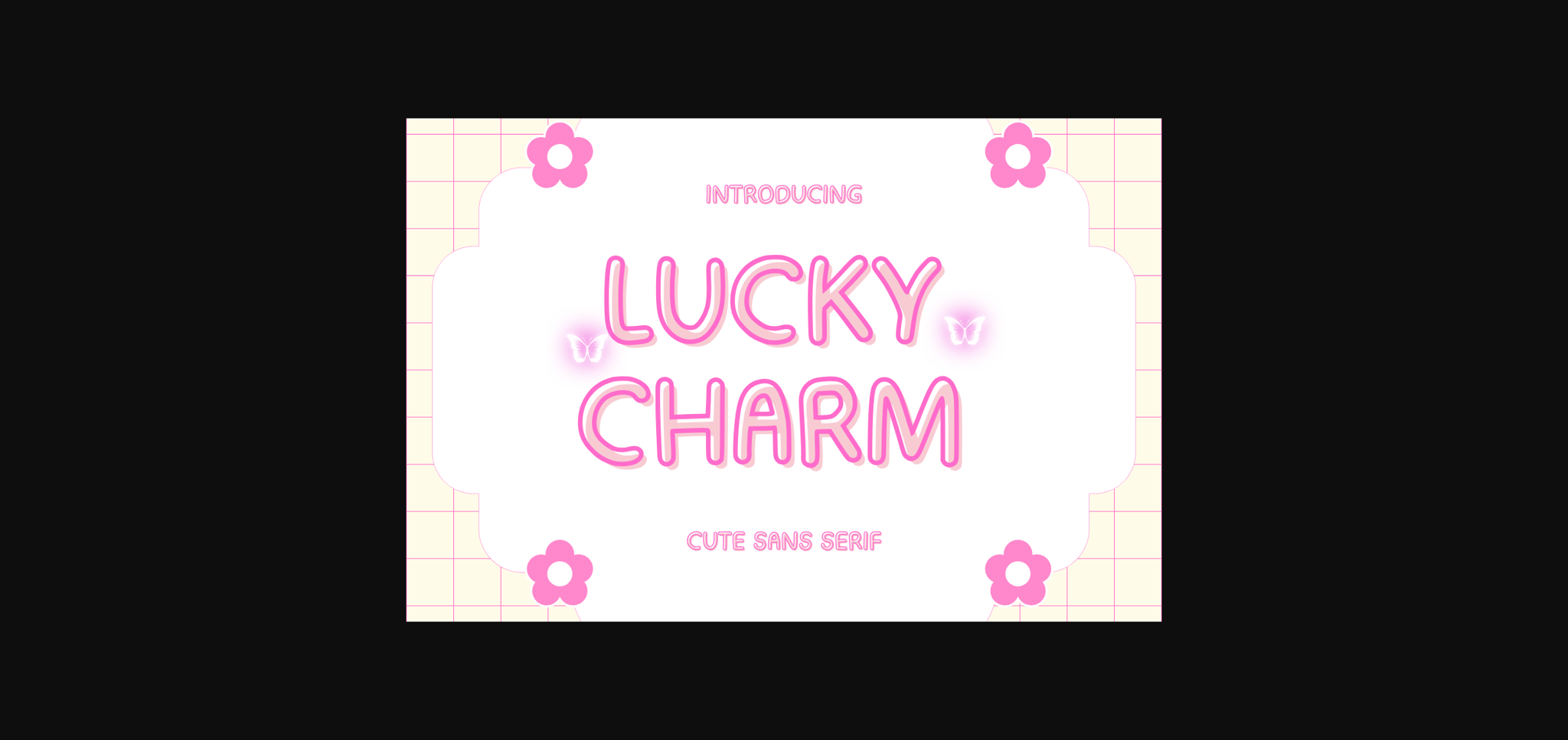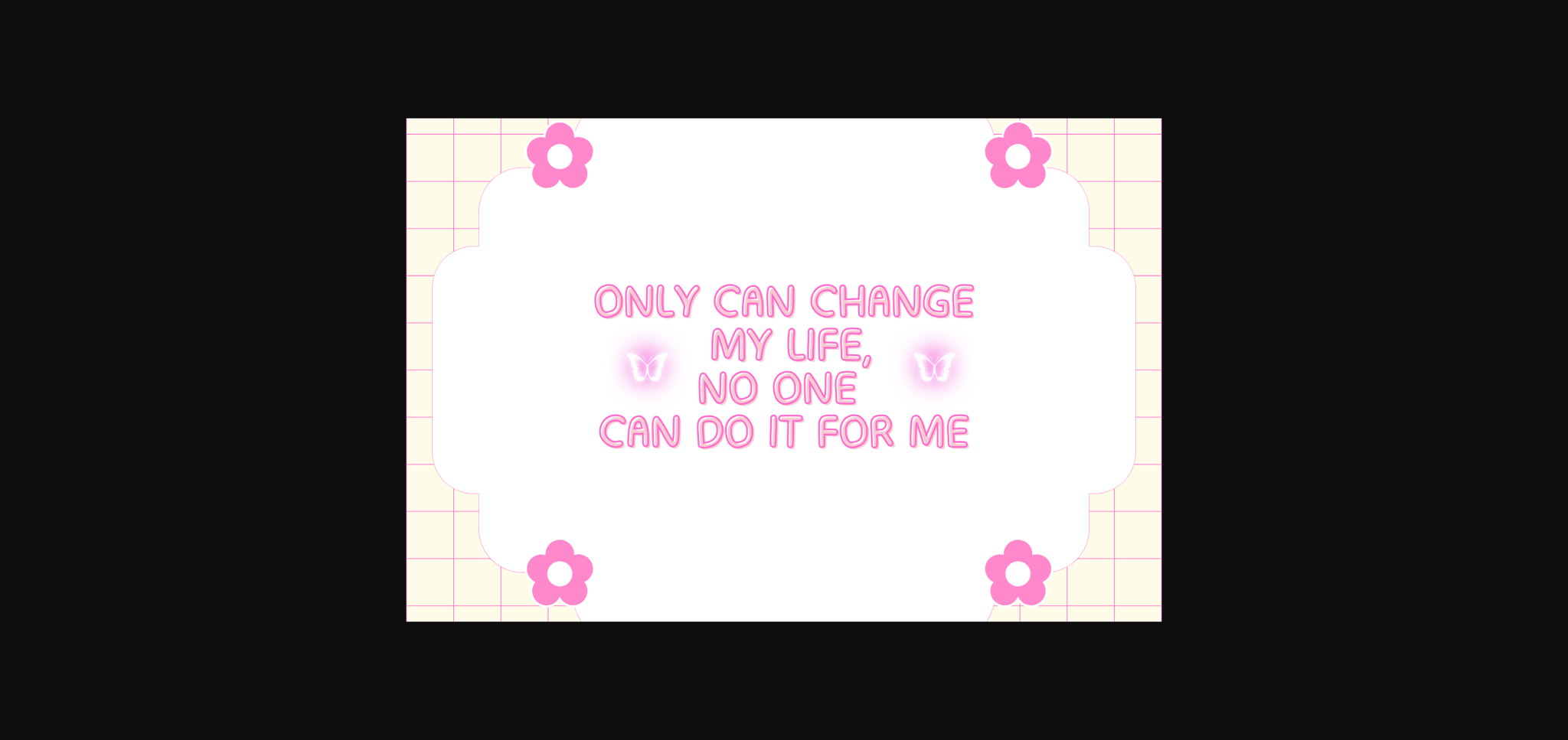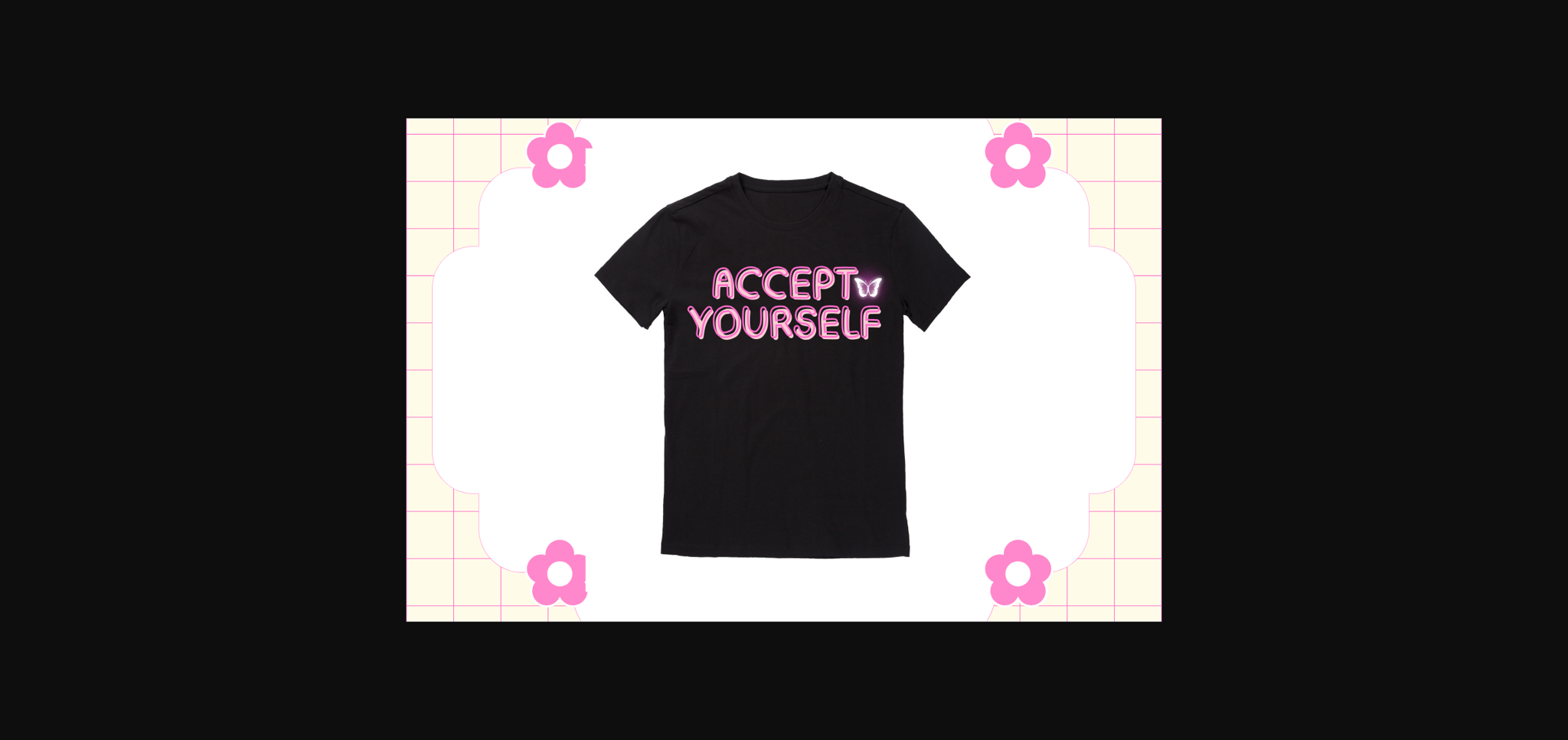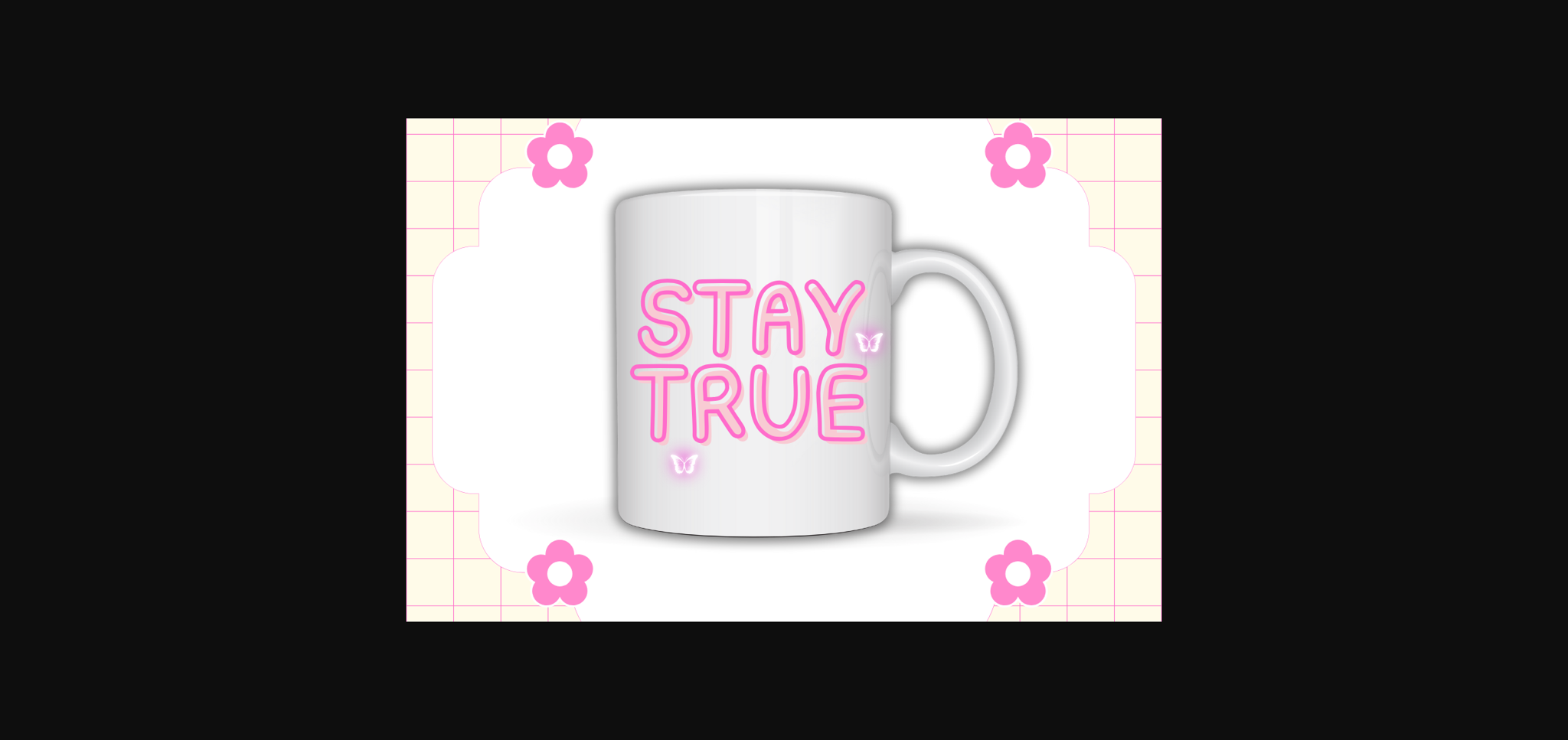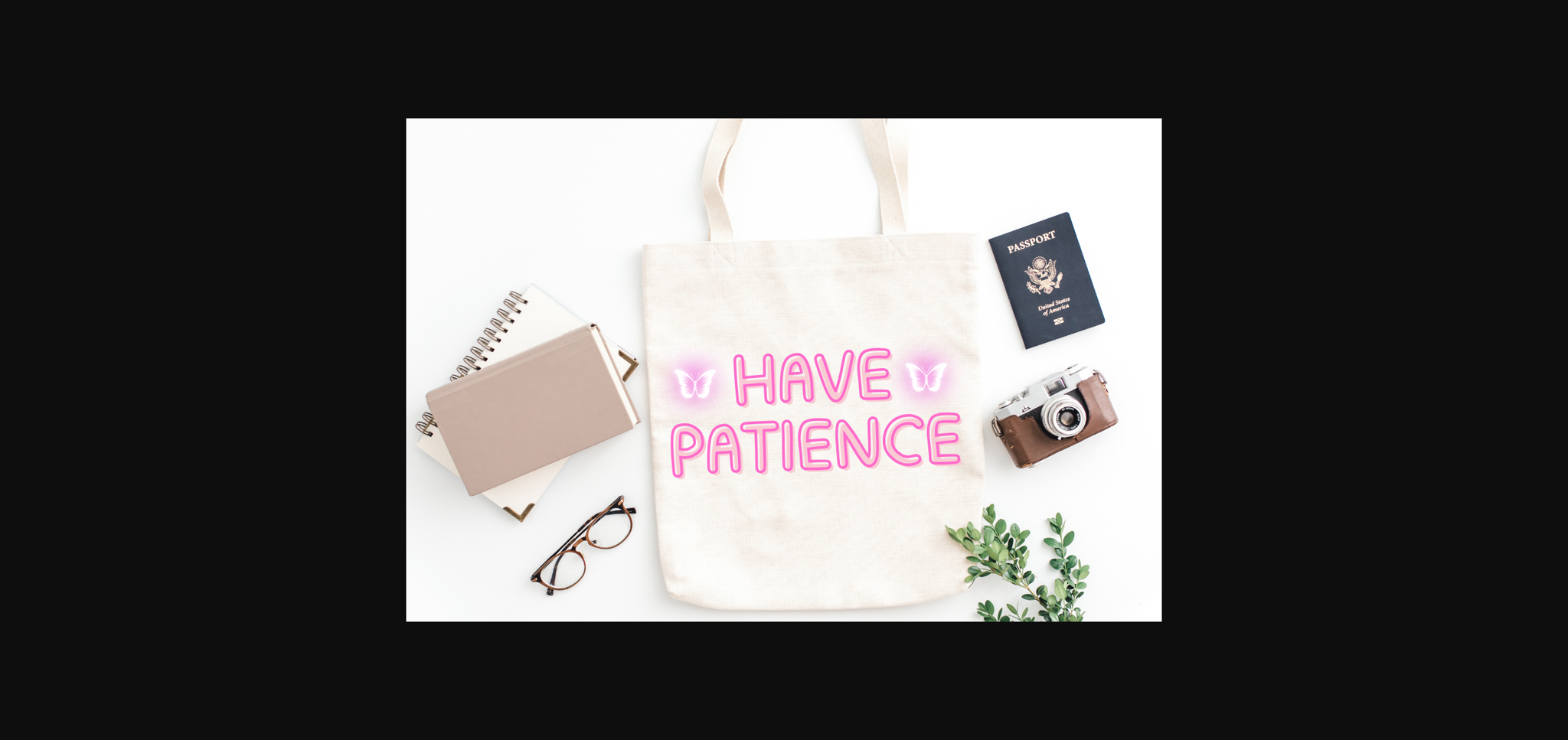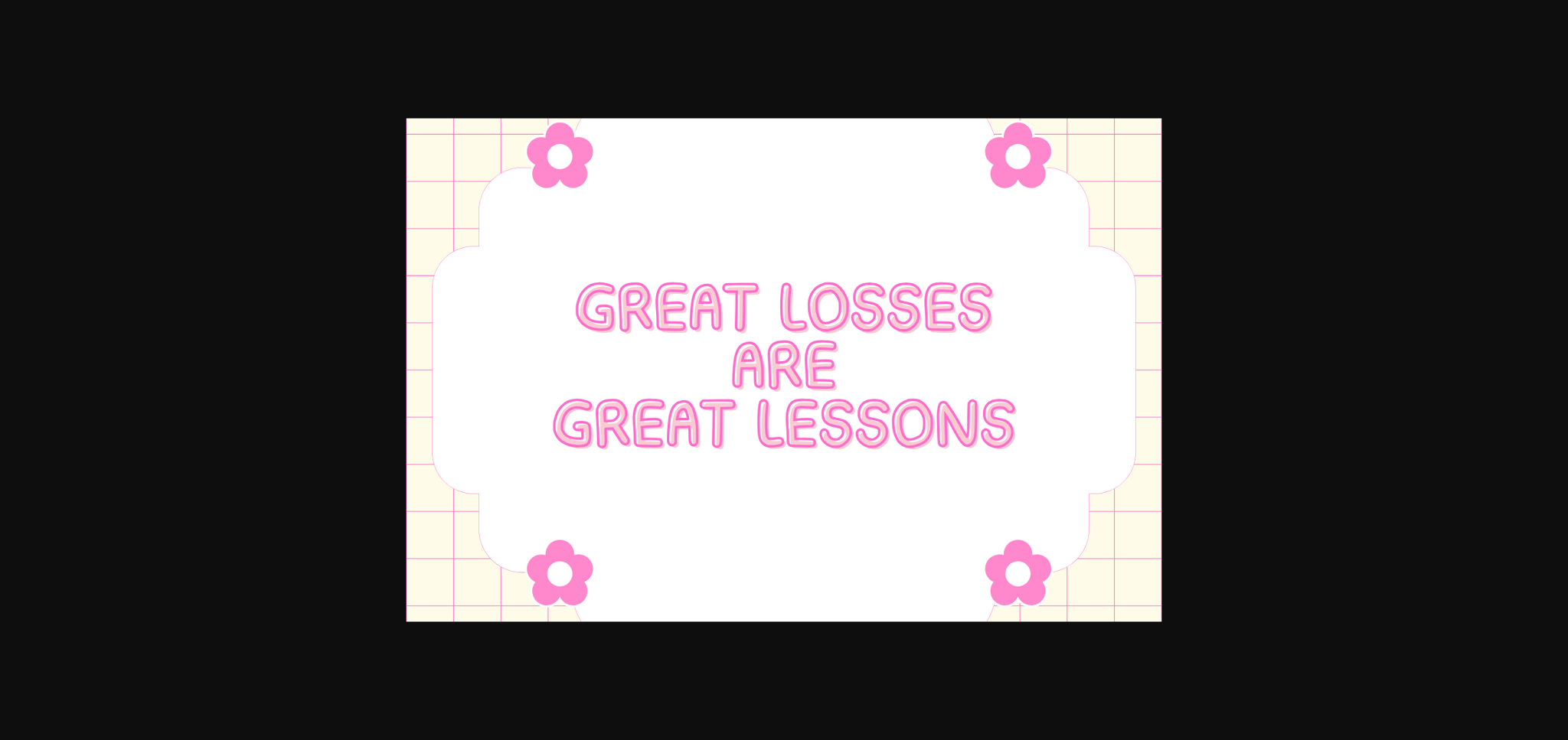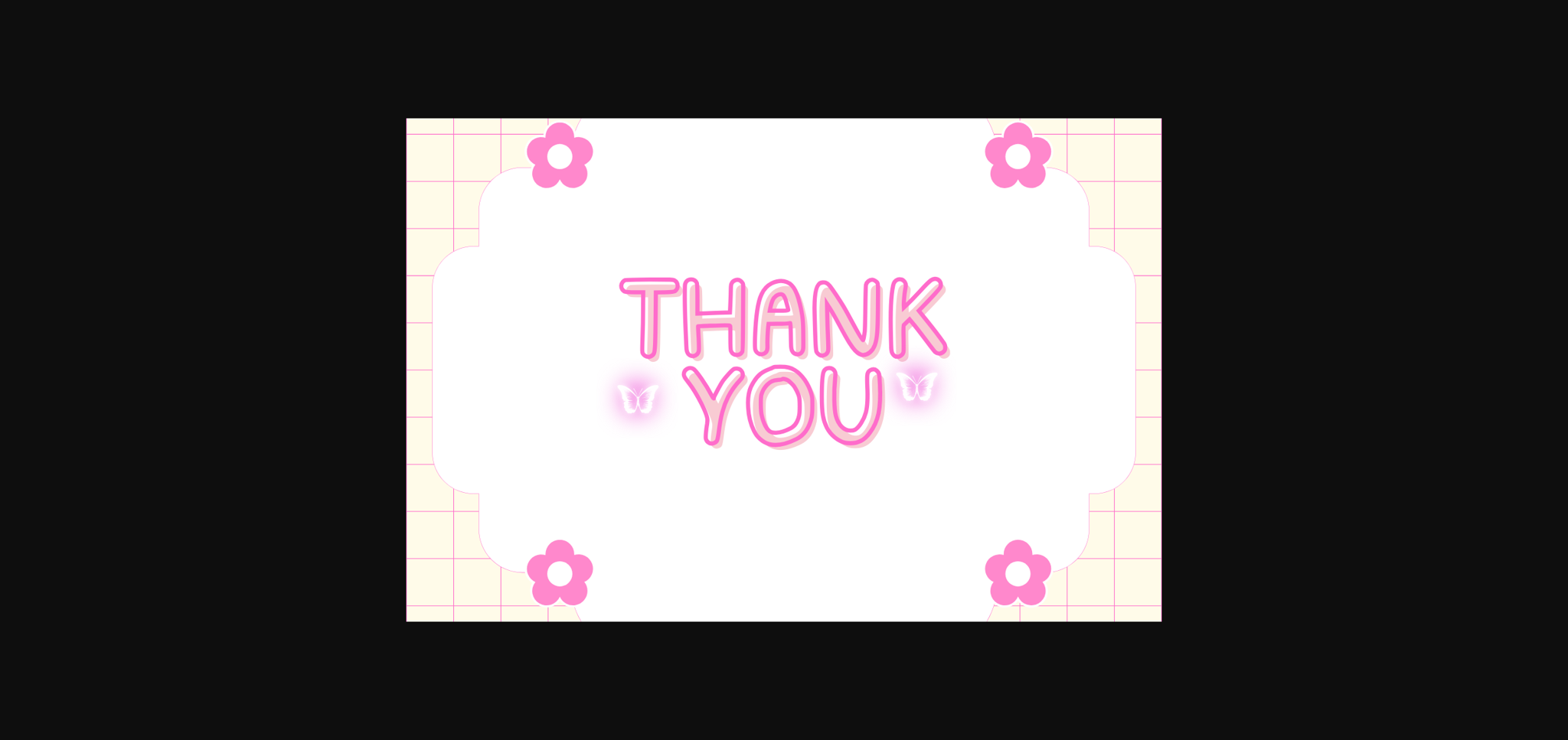
HomeSans Serif FontsLucky Charm Font Sans Serif Fonts Lucky Charm Font FacebookXPinterestWhatsApp 1 of 9 ... Lucky Charm Font Poster 2... Lucky Charm Font Poster 3... Lucky Charm Font Poster 4... Lucky Charm Font Poster 5... Lucky Charm Font Poster 6... Lucky Charm Font Poster 7... Lucky Charm Font Poster 8... Lucky Charm Font Poster 9... About Lucky Charm Font Lucky Charm is a cute and adorable sans serif font. Perfect for social media, posters, stickers, notebooks and so much more. DOWNLOAD NOW People also explored Lycopod Font Flatbread Font Blink Font Miraluna Font The Wedding Font The Carolisa Font Sharaza Font Mayblossom Staylatte Font 263 0 TagsLucky Charm Font Previous articleSimply Charm FontNext articleLovely Romantic Font LEAVE A REPLY Cancel reply Comment: Please enter your comment! Name:* Please enter your name here Email:* You have entered an incorrect email address! Please enter your email address here Website: Save my name, email, and website in this browser for the next time I comment. Personal Use Free Hello Sarrah Personal Use Free Read more about this font Token No 721 Personal Use Free Read more about this font Sushi Stroke Personal Use Free Read more about this font Zephan Personal Use Free Read more about this font BLOG Top 10 Handwritten Fonts That Elevate Your Designs Top 10 Handwritten Fonts That Will Elevate Your Designs Handwritten fonts bring a warm, personal touch to every creative project. Whether you're designing logos, invitations,... Top 7 Google Fonts Alternatives for Faster and Privacy-Friendly Web Design (2025) The 10 Best Handwriting Fonts to Add Personality to Your Designs Transform Your Website: Elevate Your Typography with 7 Best Web Font Generators